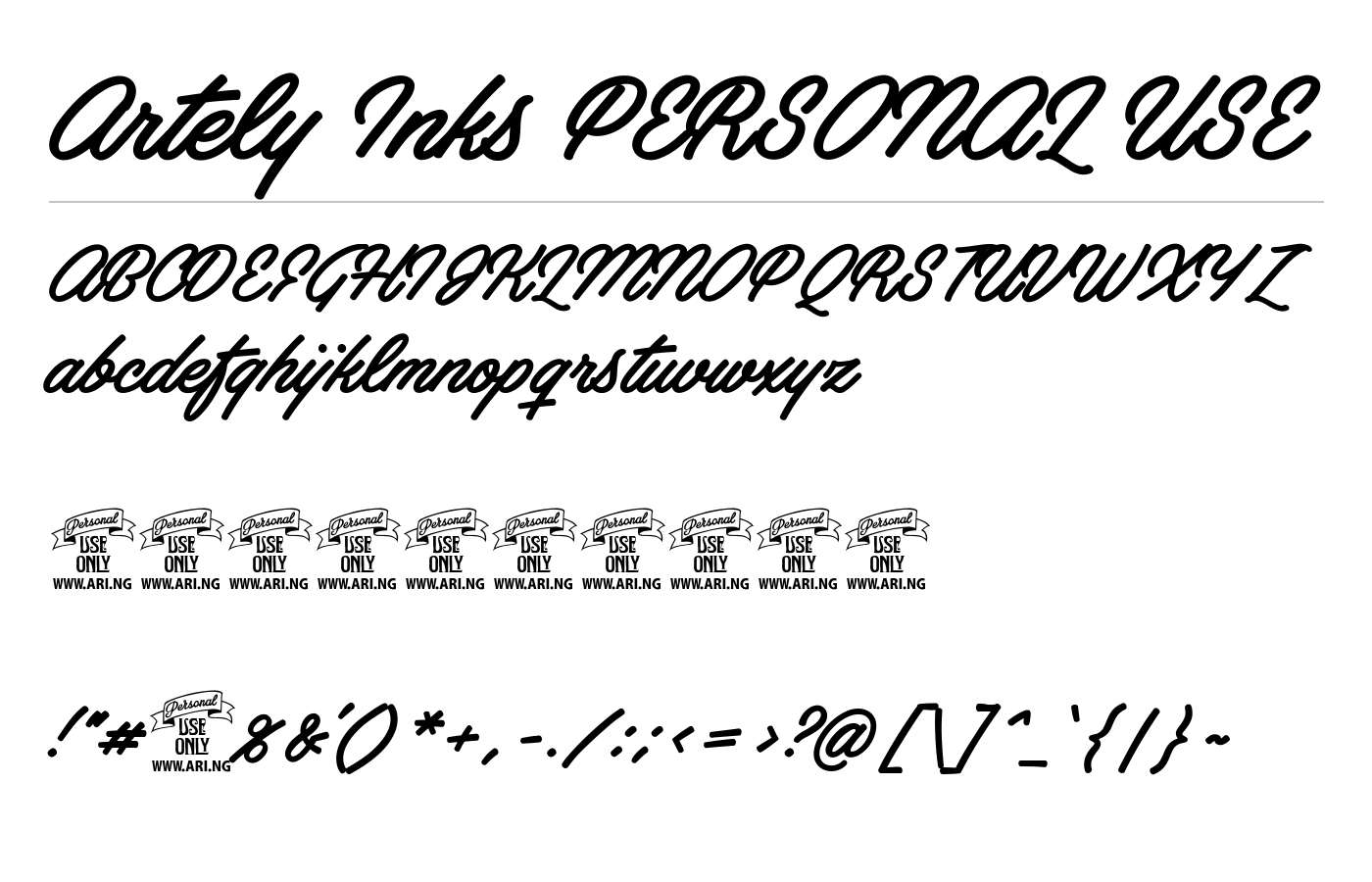
Artely Inks PERSONAL USE is a lively and elegant script font featuring smooth, flowing strokes that mimic natural handwriting with a medium weight and moderate contrast. Its slightly condensed letterforms and graceful curves make it perfect for adding a personal, stylish touch to invitations, branding, and creative designs where a friendly yet sophisticated feel is desired. This font works well in headlines and decorative text, bringing warmth and charm to any project.
Artely Inks PERSONAL USE Font
About Artely Inks PERSONAL USE Font